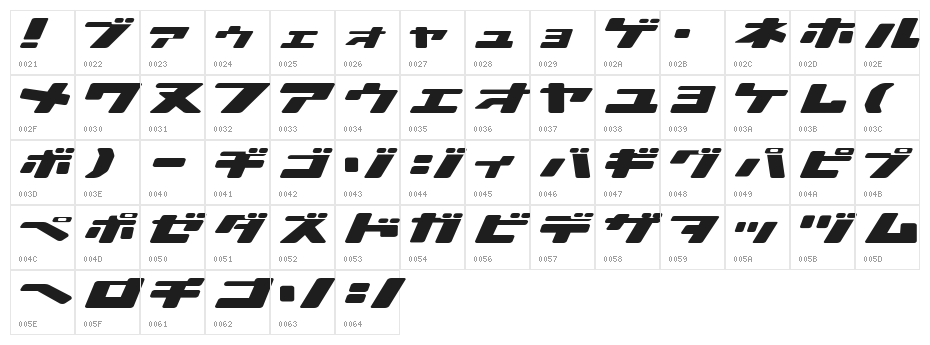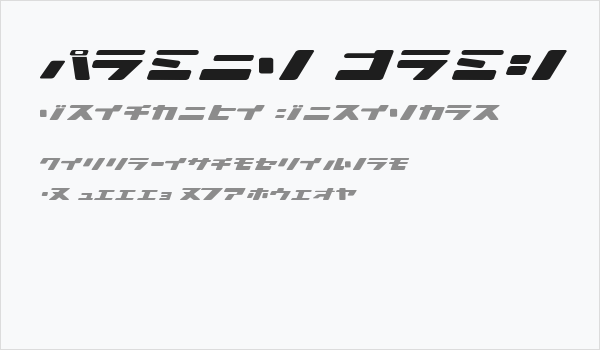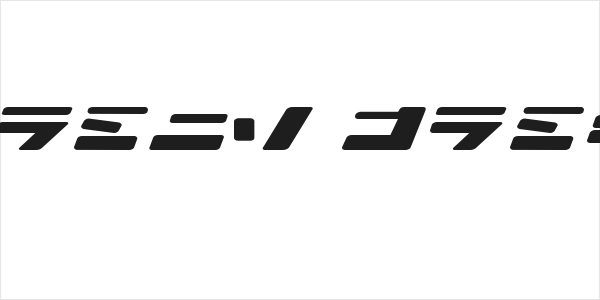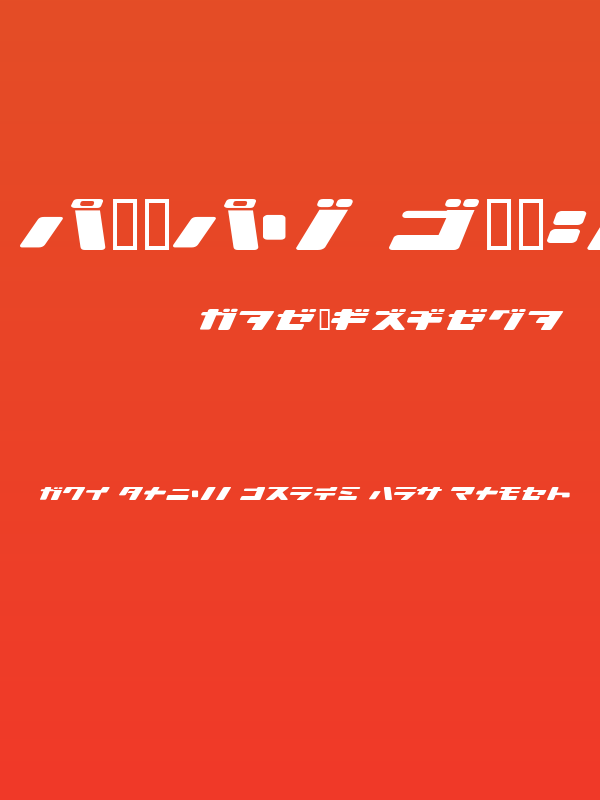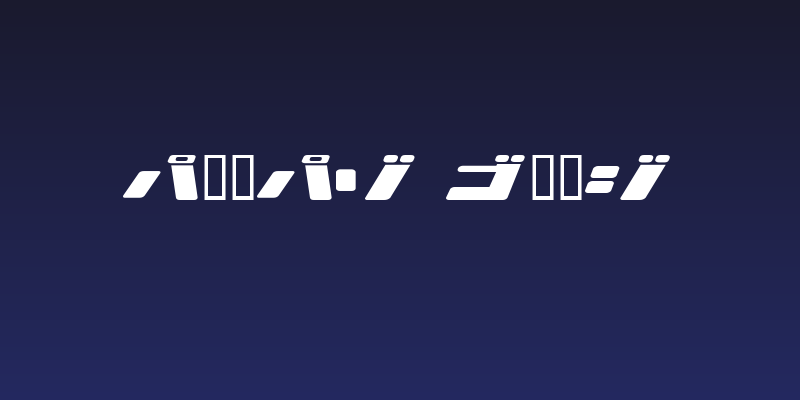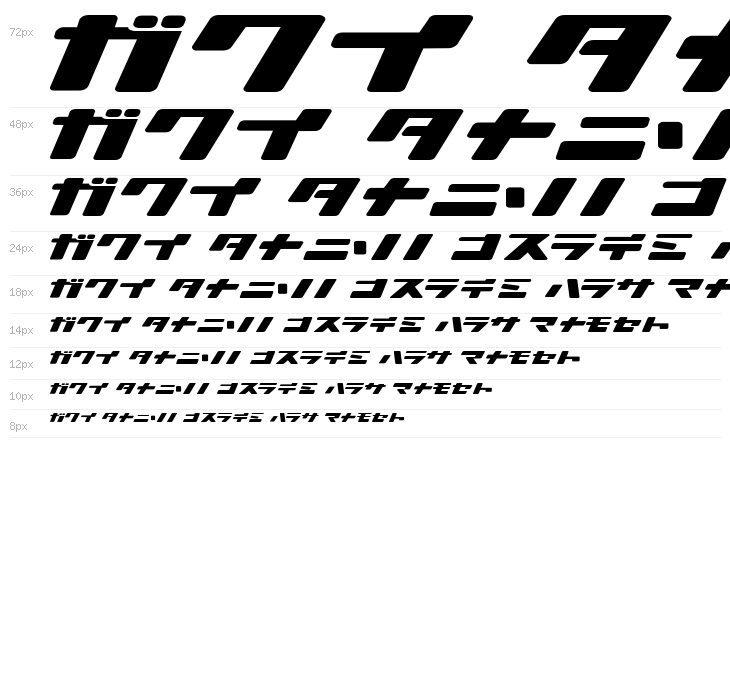
Ionic bond Font
Ionic bond Description
This font features a bold and dynamic style with a futuristic and angular design. The characters are heavily stylized, with sharp edges and a forward-leaning slant that conveys motion and energy. The strokes are thick and consistent, providing a strong visual impact. The font's geometric nature is emphasized by its uniformity in height and width, creating a cohesive and modern appearance. It is particularly suitable for attention-grabbing headlines or titles that require a sense of speed and modernity. The overall aesthetic is both sleek and aggressive, making it ideal for projects that aim to convey innovation and cutting-edge technology.
Proposed ProjectsIdeal for tech-related branding, sci-fi movie posters, video game titles, and sports team logos.